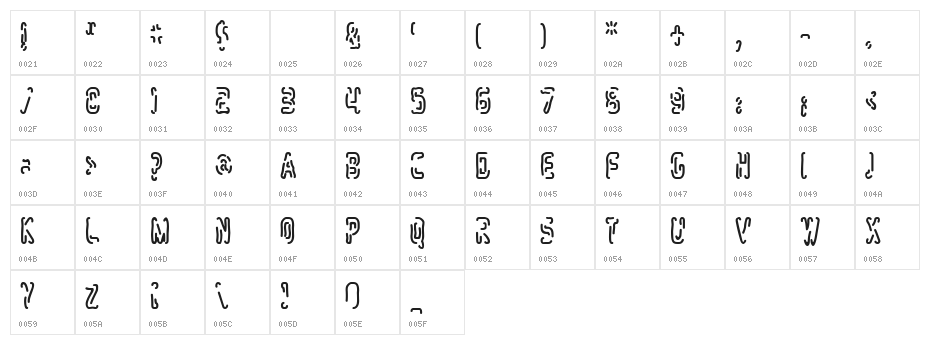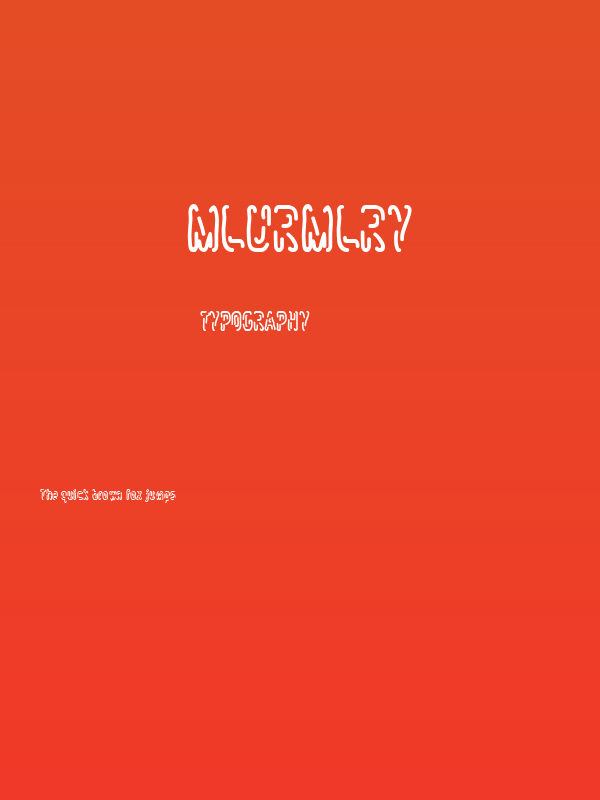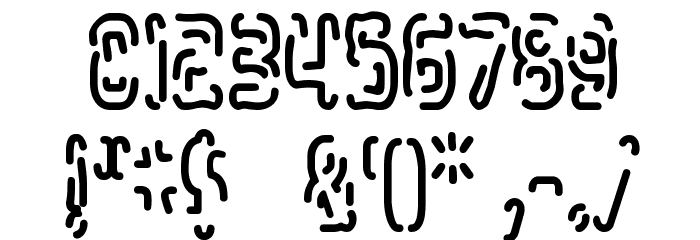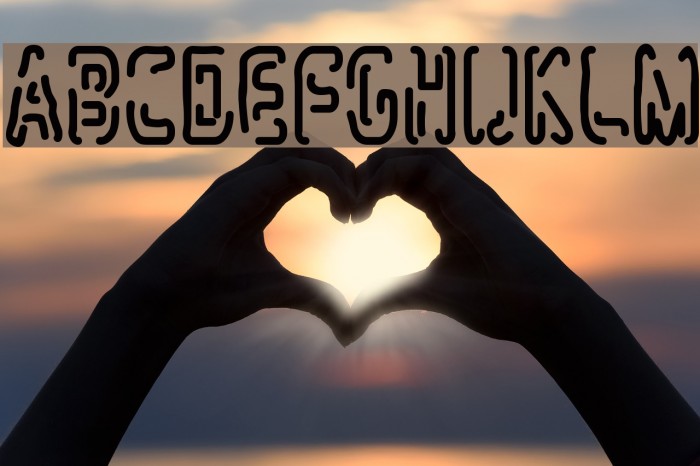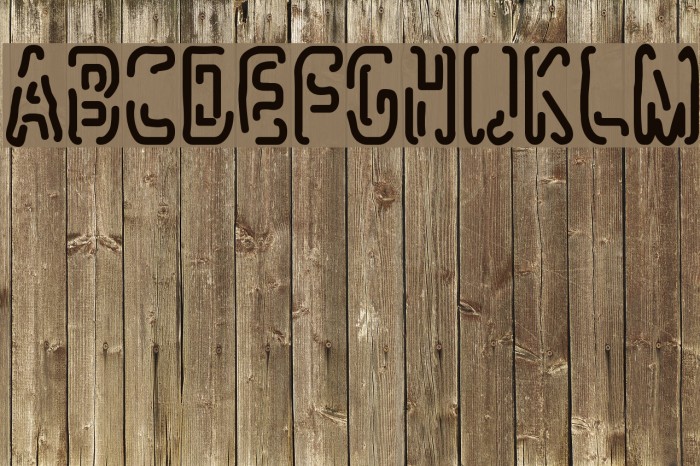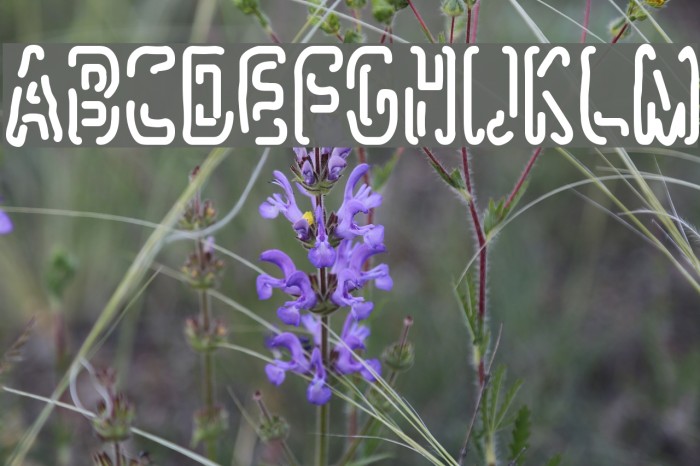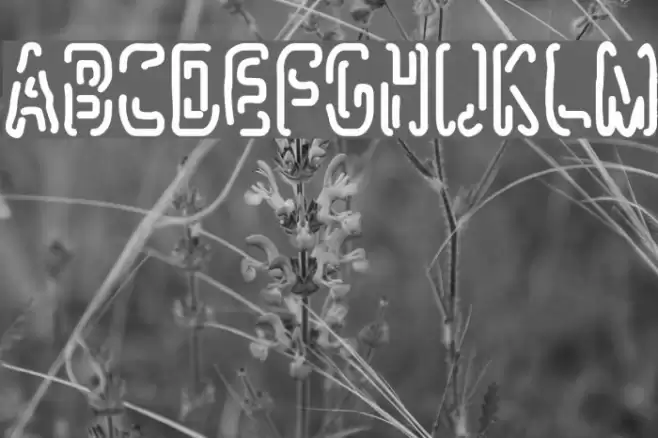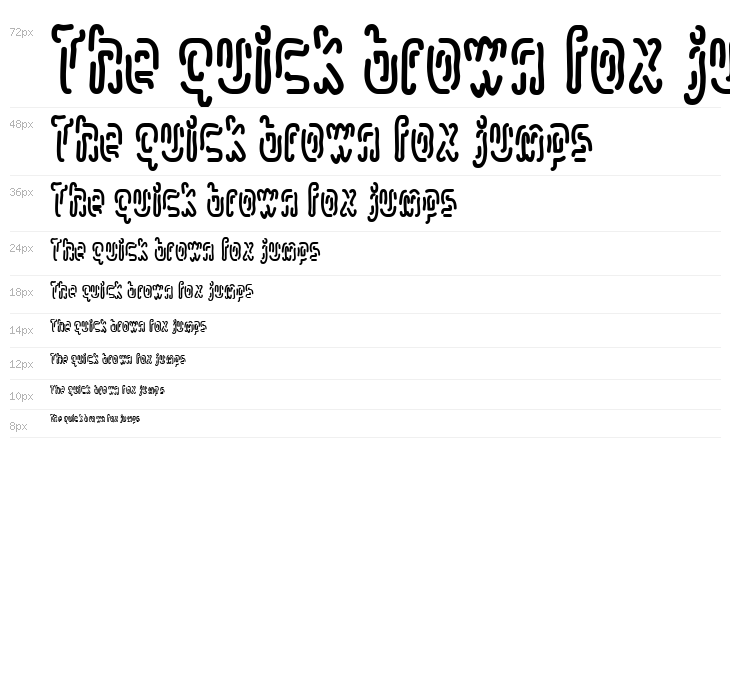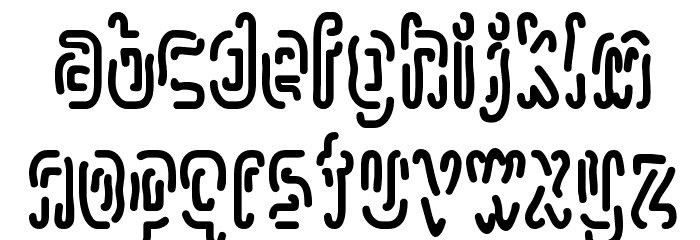
Mlurmlry Font
Mlurmlry Description
This font features a unique, decorative style with bold, interconnected strokes that create a sense of movement and fluidity. The characters are designed with a playful, almost maze-like appearance, making them stand out with their intricate patterns. The uppercase and lowercase letters maintain a consistent design theme, while the numbers and special characters complement the overall aesthetic. This font's distinctiveness lies in its artistic flair, making it suitable for creative and eye-catching designs.
| Proposed Projects | Ideal for artistic posters, creative branding, unique invitations, and eye-catching headlines. |